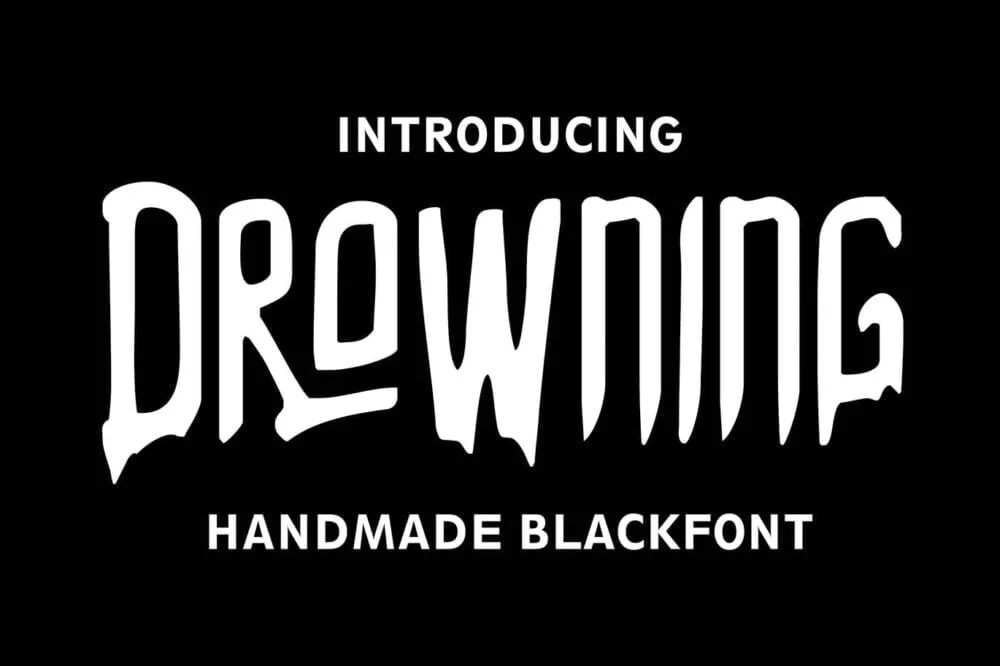
Drowning Font is just a horror font. If you like something dark design, just use this font for your project. this font comes with an extra horror look when you see it. thanks